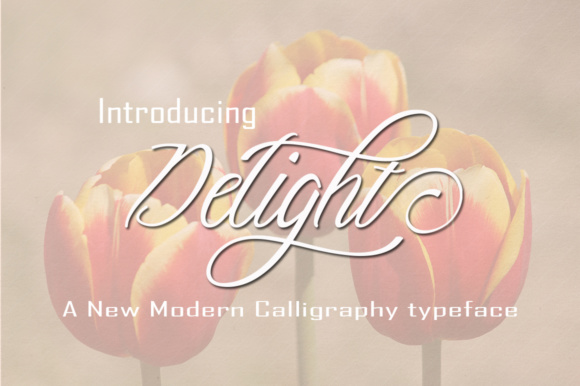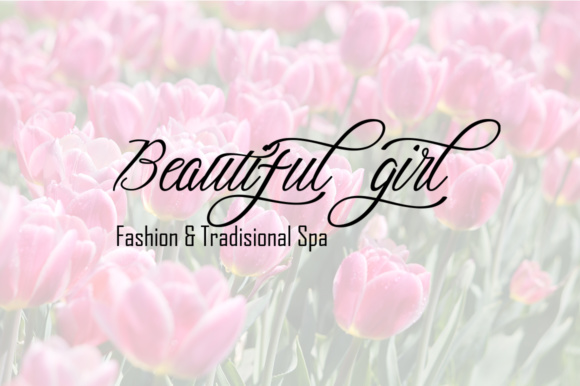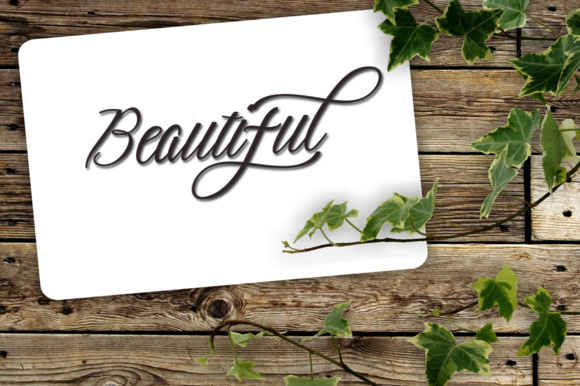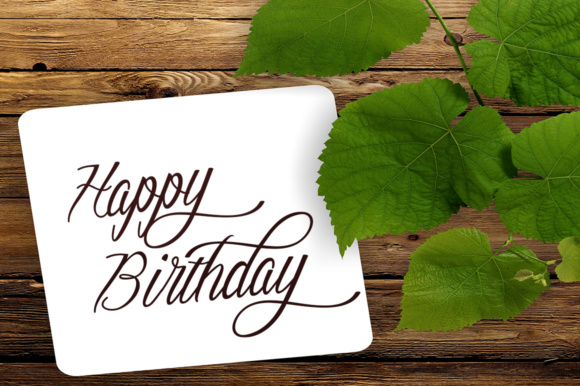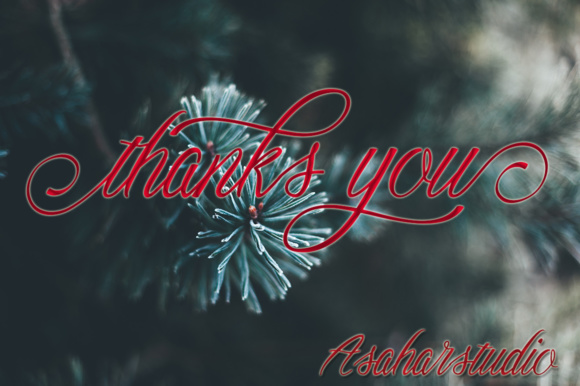
Delight Font
About Delight Font
Delight is an elegant calligraphy typeface. It can be used for various purposes such as: headings, t-shirts, news, posters and every other design that needs a elegant look.